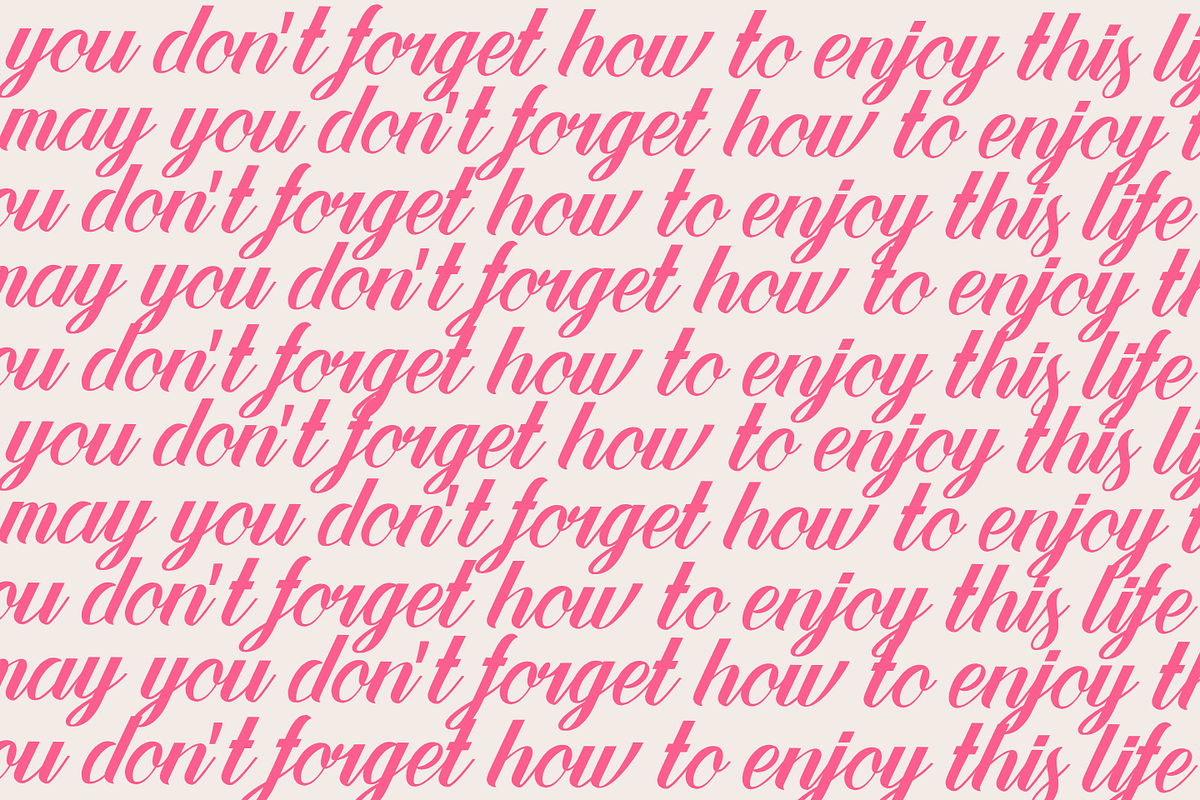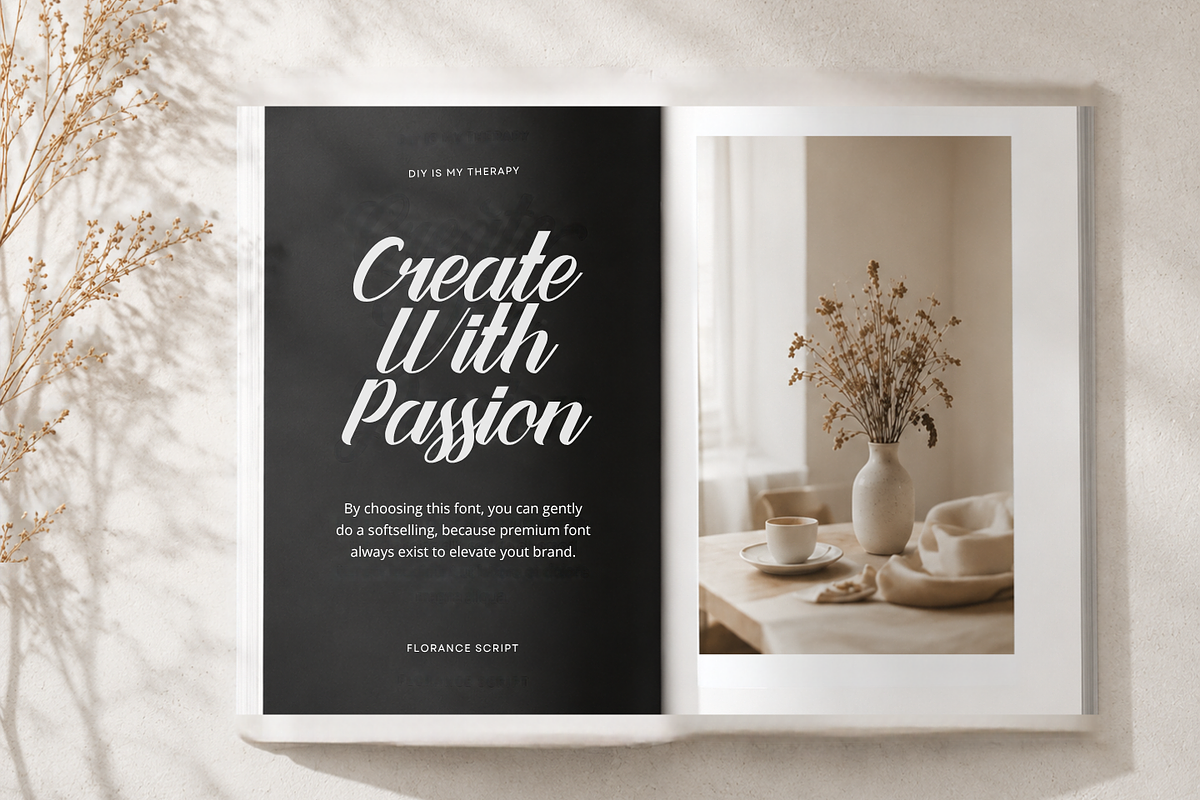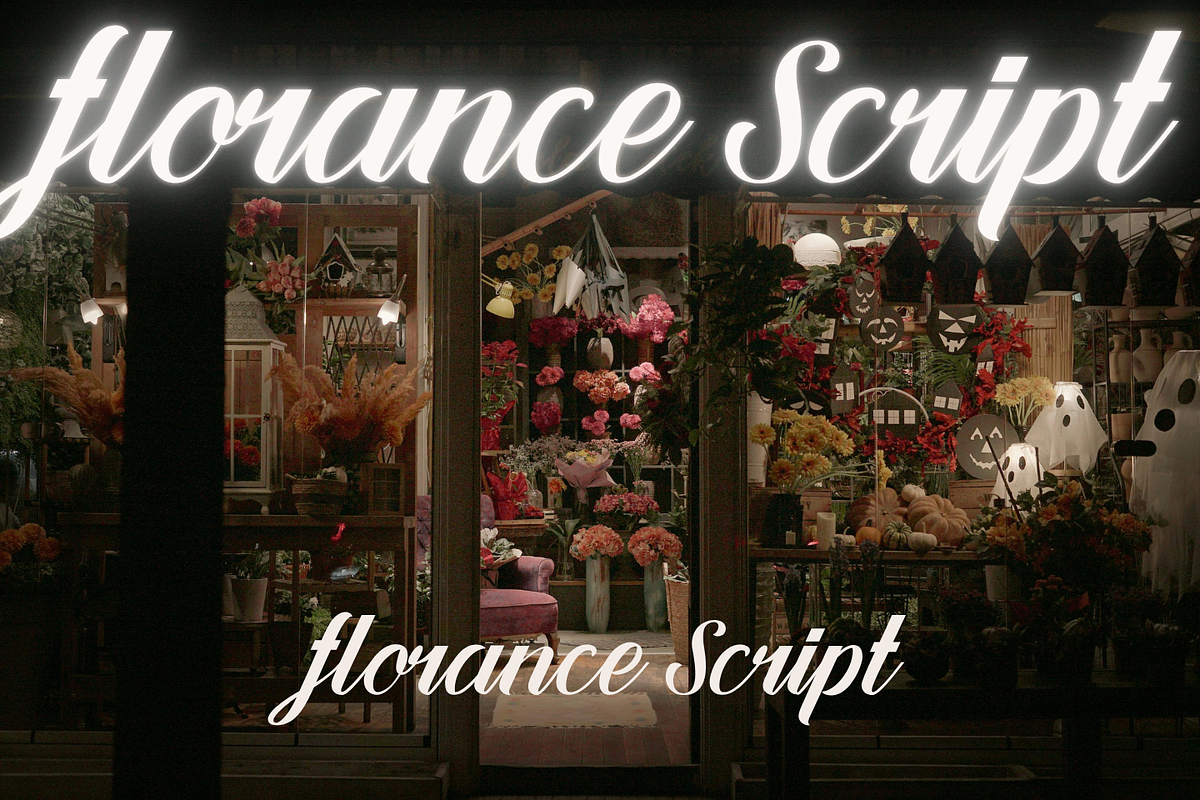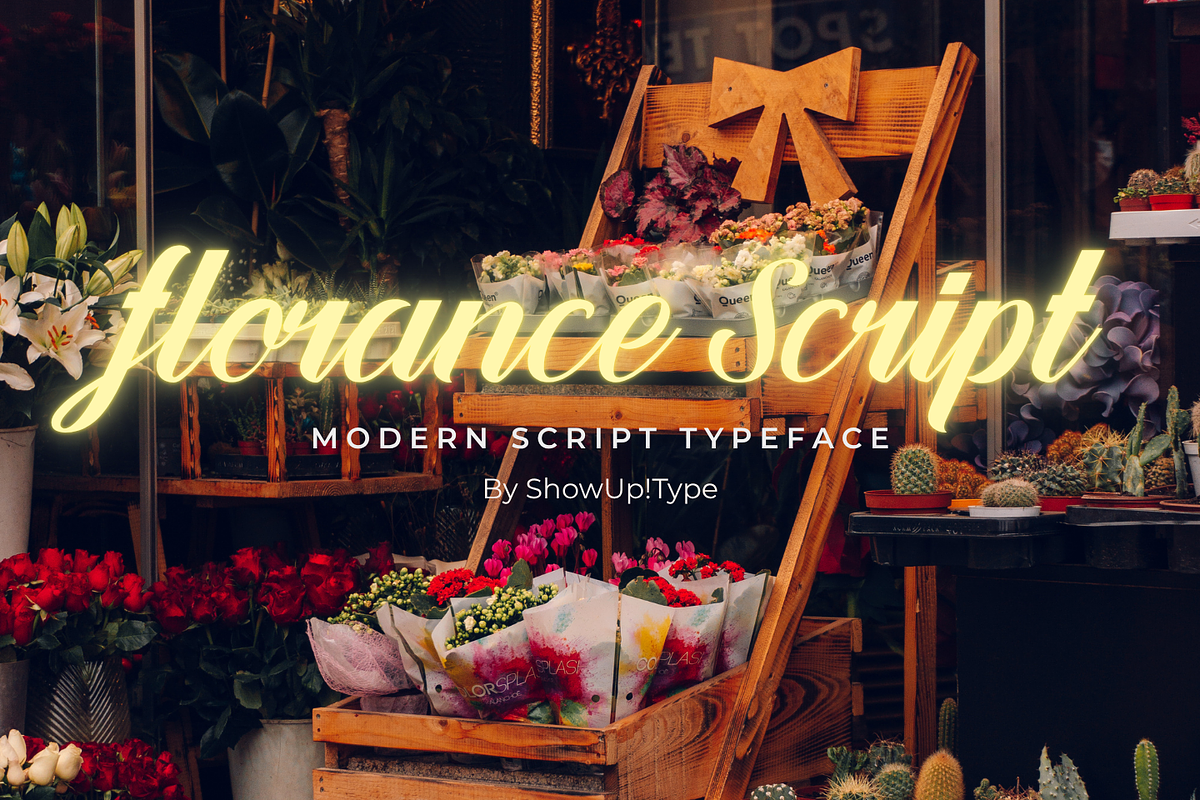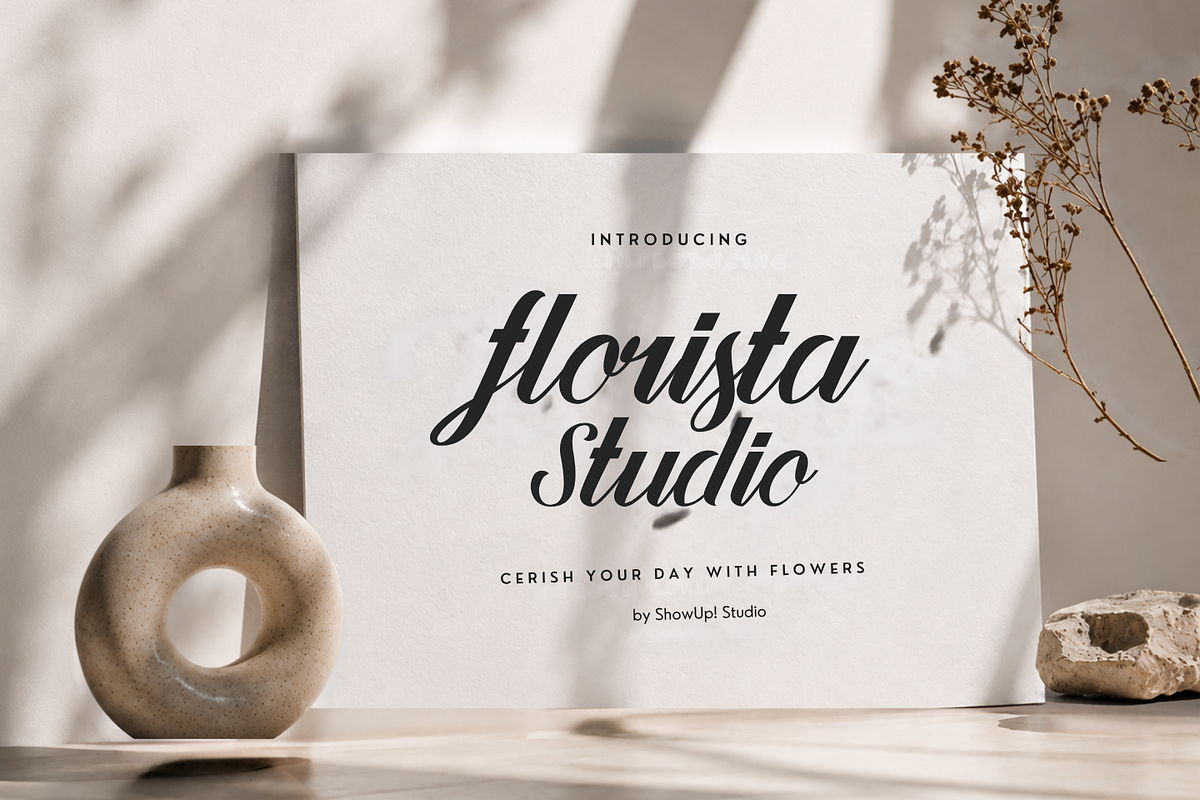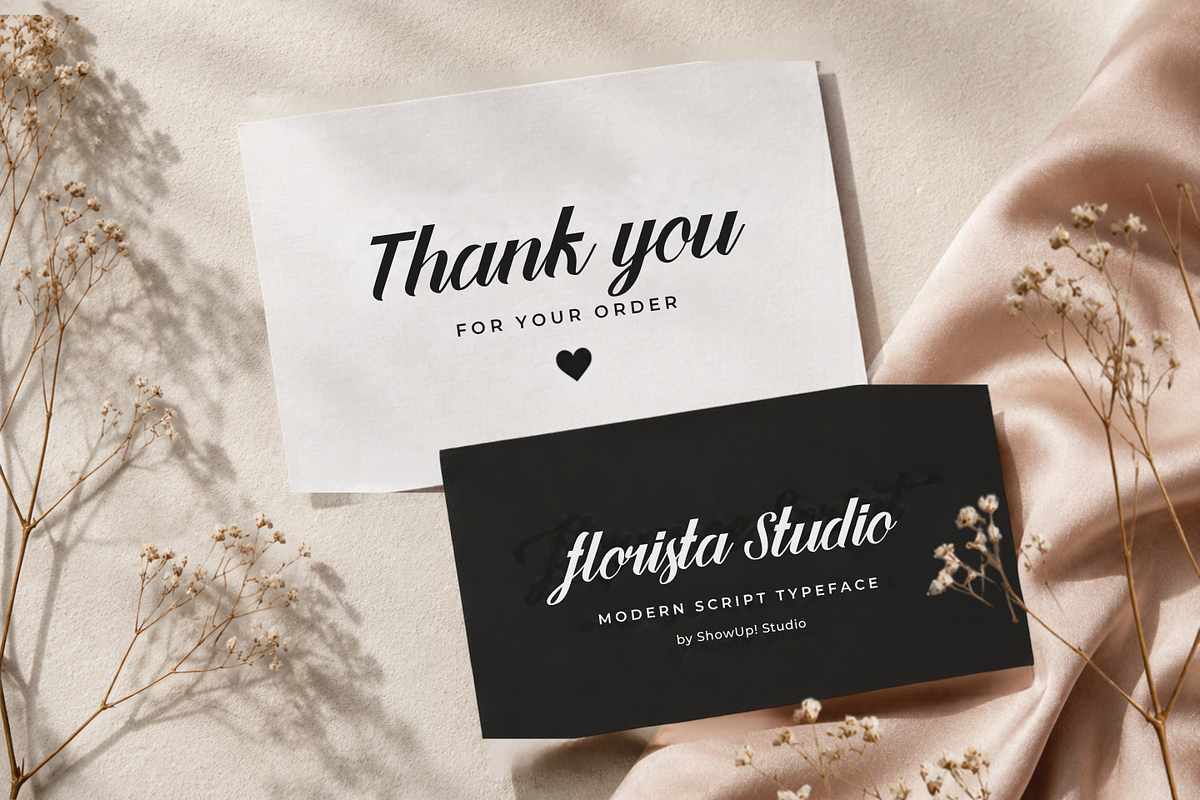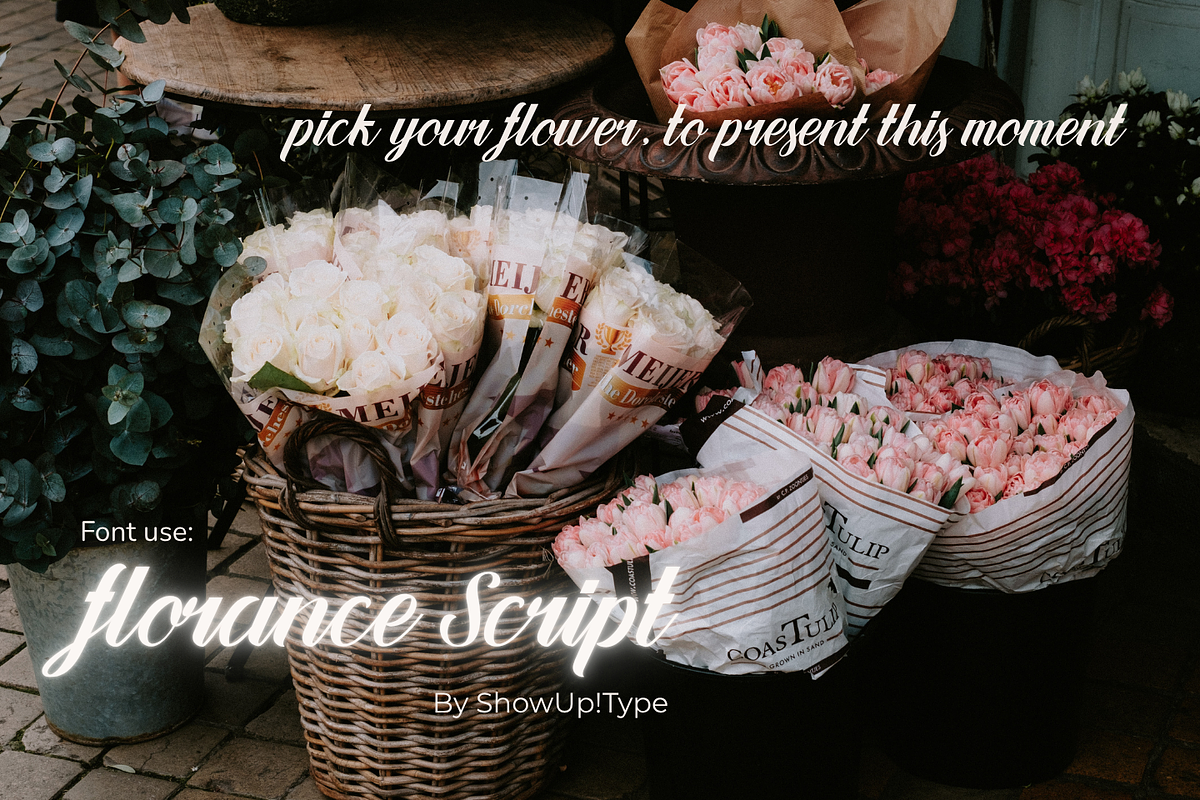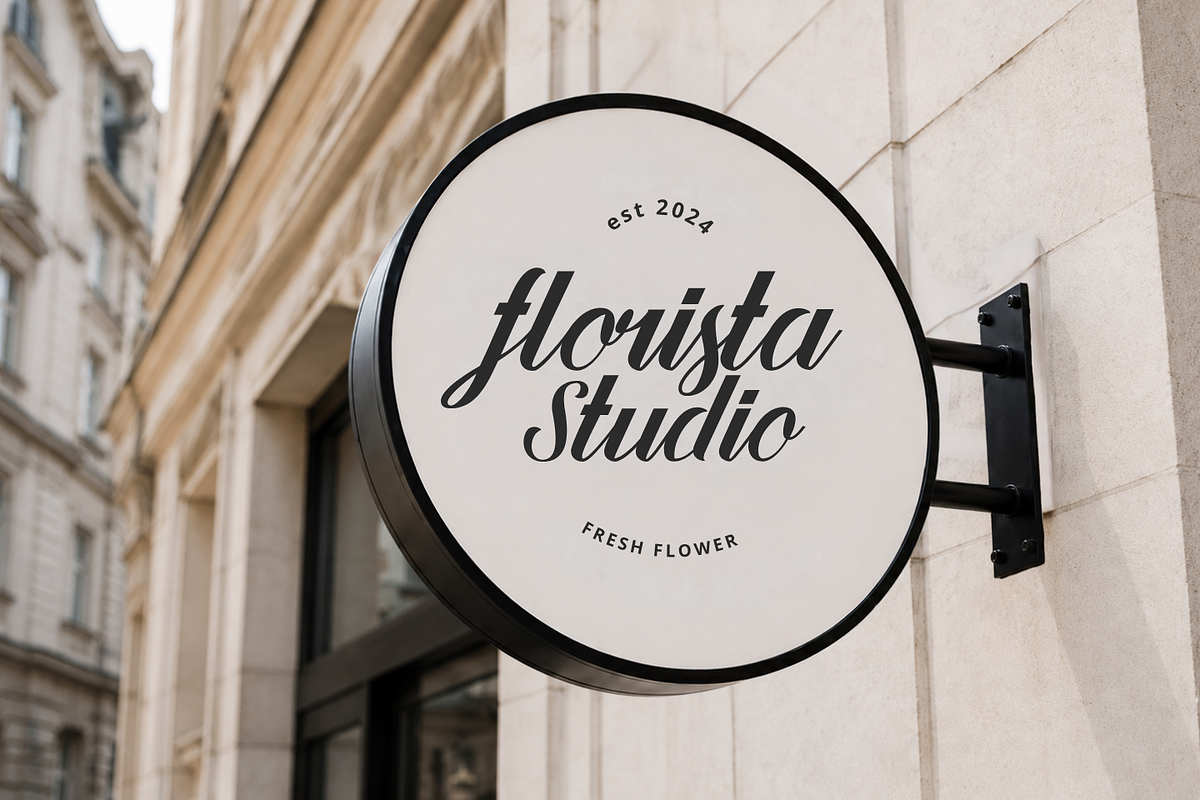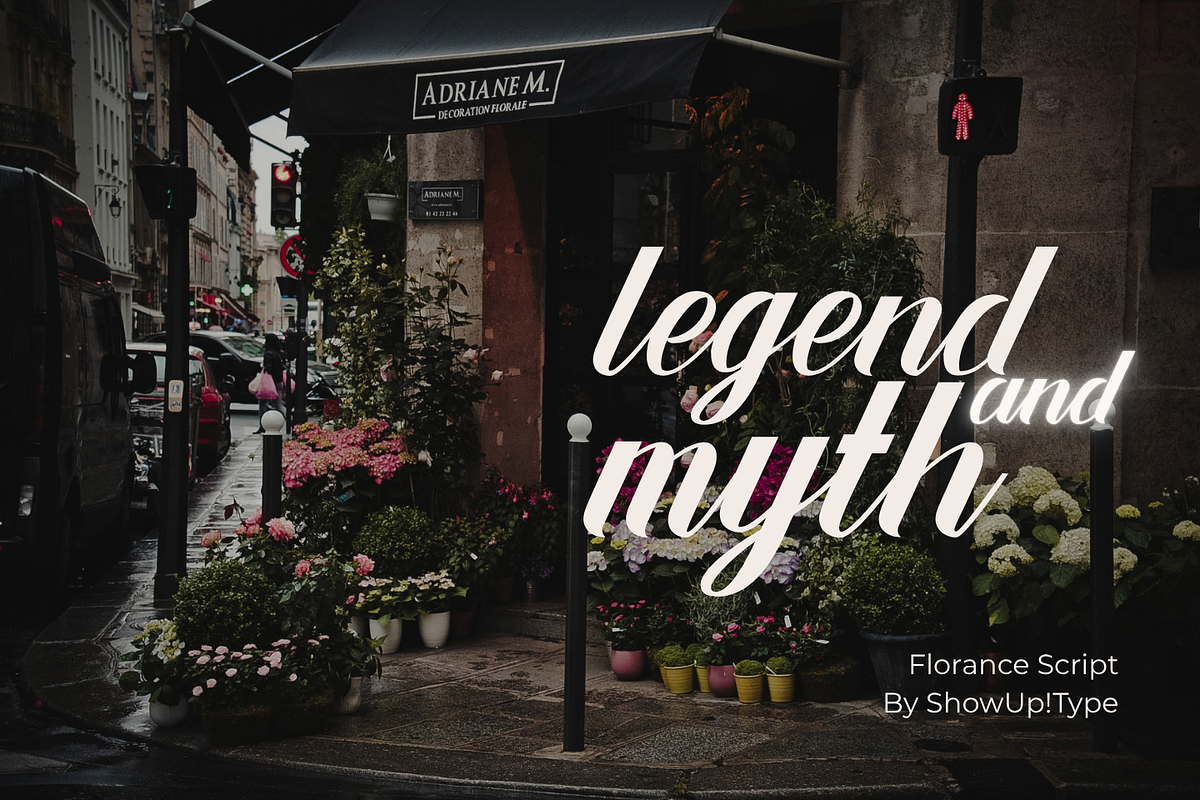
Florance Script
Florance – Elegant Modern Script Font
Introducing Florance, an elegant modern script typeface crafted to bring sophistication and natural handwritten charm to your creative work. Featuring smooth flowing strokes, graceful swashes, and beautifully designed alternates, Florance is perfect for creating luxurious branding and memorable typography.
Whether you're designing a wedding invitation, premium packaging, feminine branding, fashion editorials, social media content, or a stylish logo, Florance adds a refined handwritten touch that instantly elevates your design.
Luxury Branding
Wedding Invitations
Beauty & Fashion Branding
Cosmetic Packaging
Signature Logos
Editorial Design
Greeting Cards
Photography Watermarks
Quotes & Headlines
Uppercase & Lowercase Letters
Beautiful Ligatures
Contextual Alternates
Stylistic Sets
Elegant Swashes
With 338 carefully crafted glyphs, Florance offers plenty of creative possibilities. Mix and match ligatures, contextual alternates, stylistic sets, and elegant swashes to create unique lettering with a natural handwritten feel.